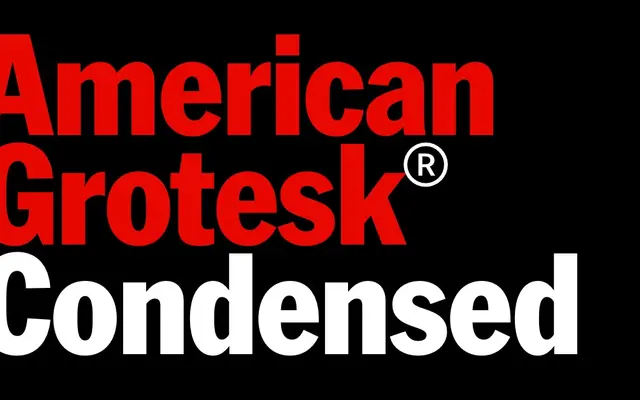
American Grotesk Condensed
Klim Type Foundry · Kris Sowersby · 2024
The condensed cut of American Grotesk, holding Franklin Gothic's voice at tighter measures for headlines, posters and packaging.
A condensed grotesque by Kris Sowersby that compresses the American Grotesk system without losing its Franklin Gothic accent. Fourteen styles span Thin to Black with matching italics, sitting between the standard width and the tighter Compressed cut. Reach for it on posters, mastheads and packaging where you want vertical economy and the same vernacular American voice.
Klim classifies it as Lineal: Grotesque; the condensed cut within the American Grotesk system, drawing on Franklin Gothic's role in American graphic vernacular and persuasive communication.